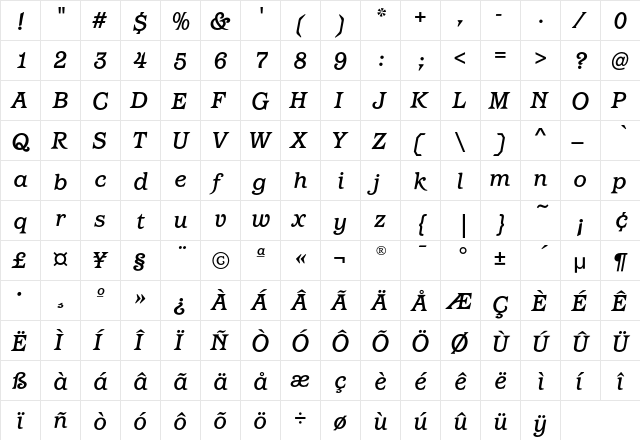
BarcelonaEF-MediumItalic Regular Font Preview
BarcelonaEF-MediumItalic Regular
Design Context for BarcelonaEF-MediumItalic Typeface
BarcelonaEF-MediumItalic offers clean, dependable letterforms without strong stylistic allegiance, making it a practical choice for designers who need flexibility. The dynamic lean of this cut emphasises speed and emphasis in any layout.
Pro Tip: Try BarcelonaEF-MediumItalic for annotation and caption copy alongside an upright companion — the contrast in angle creates a dynamic but ordered typographic system.